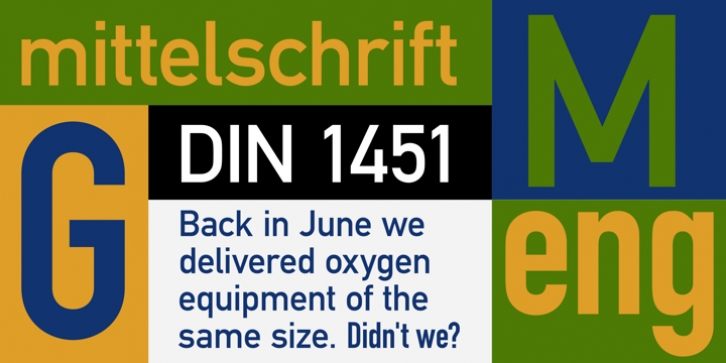
The letters DIN refer to the Deutsche Industrie-Norm, the German Industrial Standard; among their many uses, these typefaces are seen on most road signs and license plates in what was formerly West Germany. One of the primary criteria for the DIN Schriften design was a facility for reproduction. There are four geometric sans serif typefaces, of roughly the same weight but of various widths, from quite round to condensed.